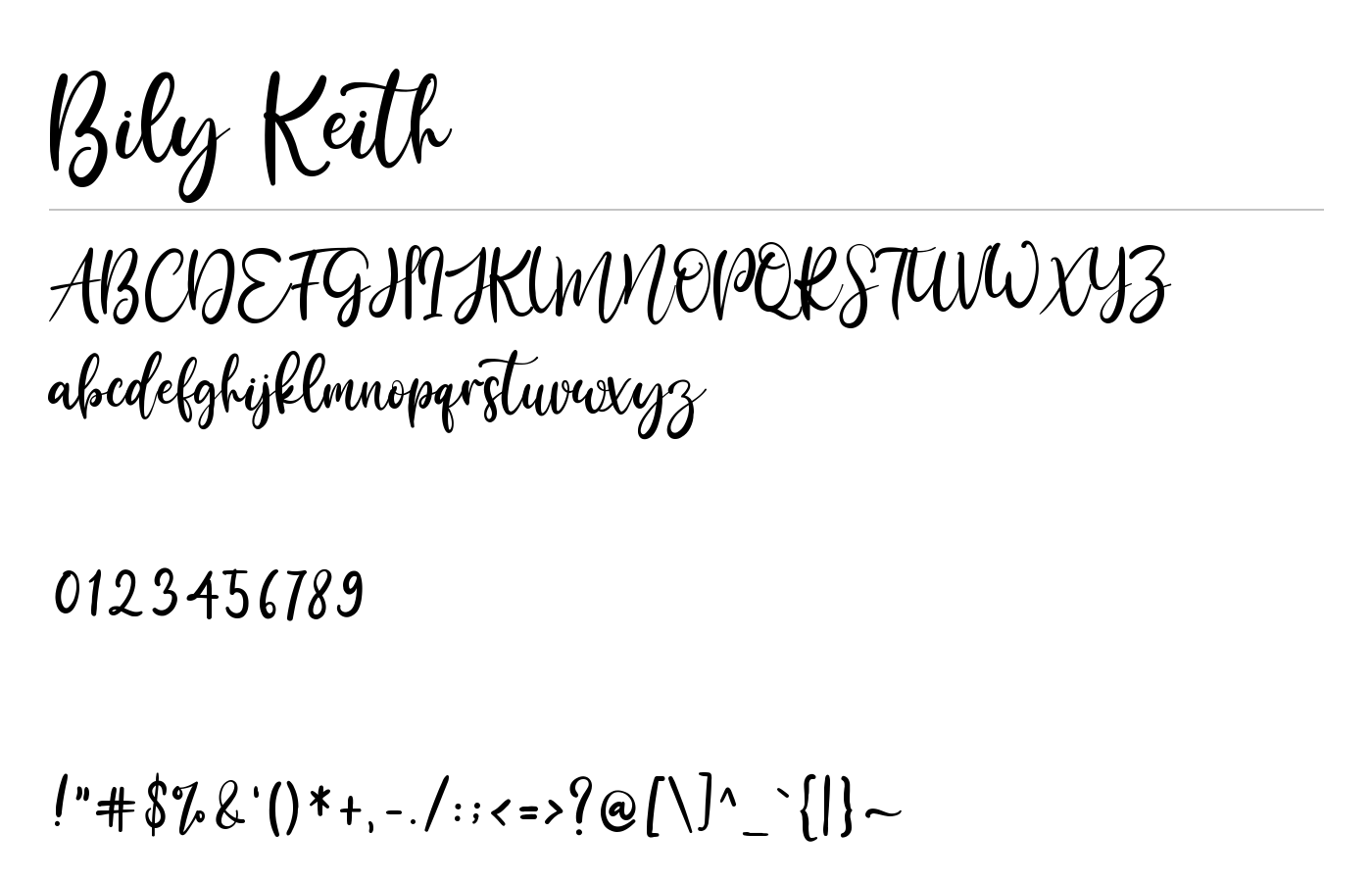
Bily Keith is a stylish handwritten script font that features elegant, flowing letterforms with moderate contrast and a casual yet refined feel. Its natural, brush-like strokes and well-balanced spacing make it perfect for creative branding, invitations, and personal projects that seek a warm, approachable, and sophisticated touch. This font shines in contexts where a friendly and artistic aesthetic is desired, such as logos, social media graphics, and greeting cards.
Bily Keith Font
About Bily Keith Font